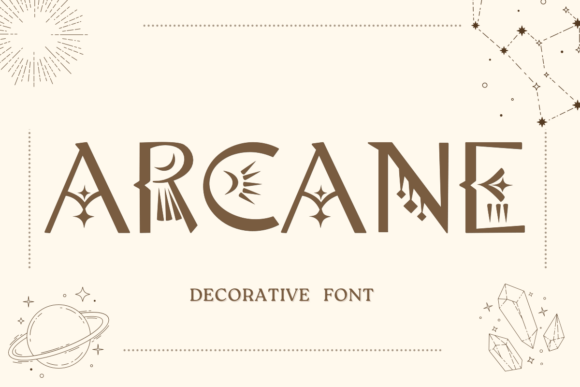
Unlock the Magic of Arcane Font
Have you ever sat at your desk, surrounded by scattered papers and pens, feeling the spark of creativity ignite within you? The urge to bring your ideas to life, to express yourself in a way that’s uniquely yours, is a sensation that’s hard to resist. For designers and writers alike, this moment is a call to action – and the right font can make all the difference.
That’s where the Arcane Font comes in – a beautifully crafted, decorative font that’s perfect for adding a touch of whimsy to your projects. Whether you’re writing a diary entry, creating greeting cards, or designing banners, this font is sure to captivate your audience. And with its versatility, you can use it for a wide range of designs, from social media posts to merchandise and beyond.
Arcane Font Key Features
- Unique Characteristics: Arcane Font features a unique blend of fantasy and gothic elements, with intricate details and ornaments that set it apart from other fonts.
Arcane Font Review
Overall, I think Arcane Font is a solid choice for designers looking for a unique, mystical feel. Here are some things that stand out to me:
- ✨ The font’s intricate details and subtle variations in weight and style create a sense of depth and visual interest.
- ✨ The font’s mystical, otherworldly feel is perfect for projects that require a touch of magic or fantasy.
- ✨ The font’s versatility means it can be used in a variety of contexts, from branding to publishing.
However, I do have a few concerns:
- ⚠️ The font’s complexity can make it difficult to read at small sizes, which may limit its use in certain applications.
- ⚠️ The font’s unique style may not be to every designer’s taste, which could limit its appeal in certain contexts.
Overall, I think Arcane Font is a great choice for designers who are looking for a unique, eye-catching font. While it may have some limitations, its strengths far outweigh its weaknesses. With careful use, I think this font could be a real showstopper.
Getting the Most Out of Arcane Font
1. Experiment with different font sizes and colors to create a unique look.
2. Use Arcane Font in combination with other fonts to create a visually appealing contrast.
3. Apply the font to images or graphics to add texture and interest.
1. Fantasy and science fiction designs, such as book covers, posters, or website headers.
2. Gaming and esports branding, including logos, icons, and typography.
3. Creative and artistic projects, such as illustrations, graphics, or mixed media art.